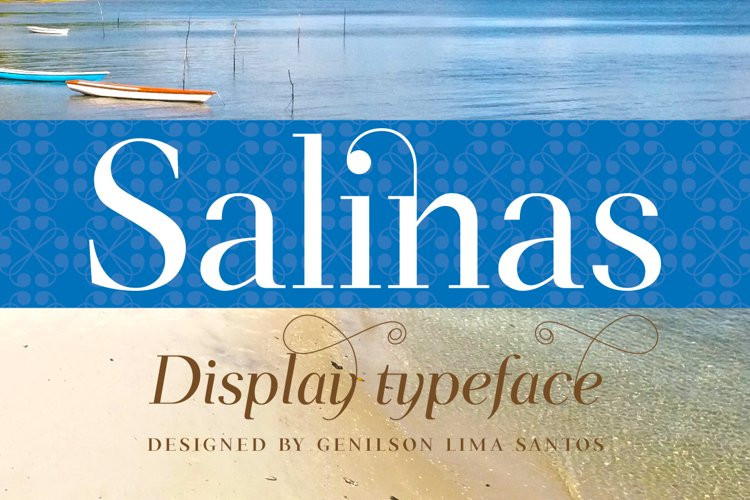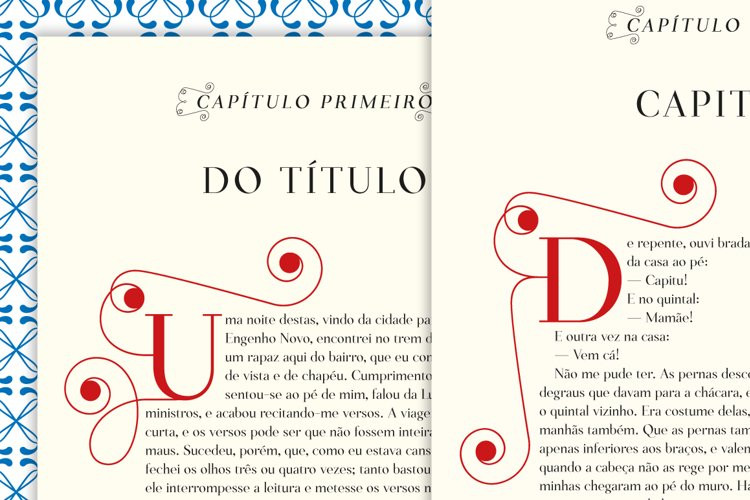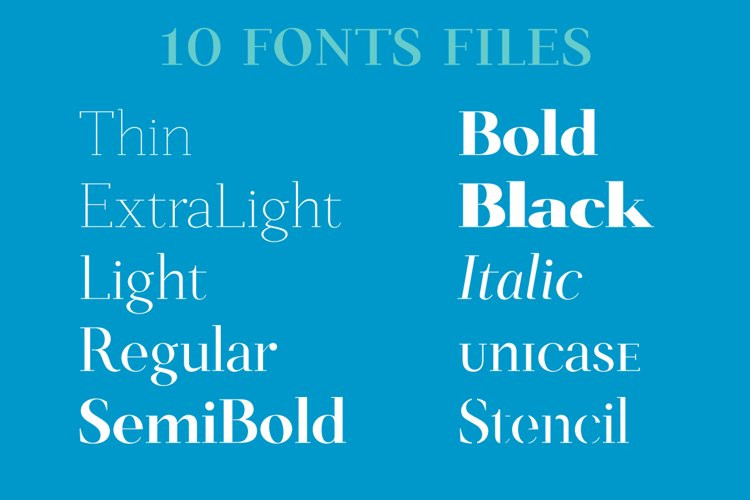
Salinas Serif Fonts
Salinas Serif FontsSalinas is an elegant high contrast serif font. Consists of 10 font files, giving it flexibility for display need. It is perfect for logos, headings, wedding invitation, t-shirt, letterhead, news, posters, magazines etc. It has a complete latin character set, ligatures, swashes, initial and terminal forms, accented glyphs and OpenType features. Each font contains 480+ glyphs, supporting more than 200 languages.